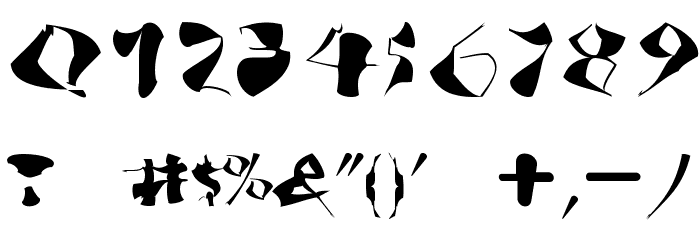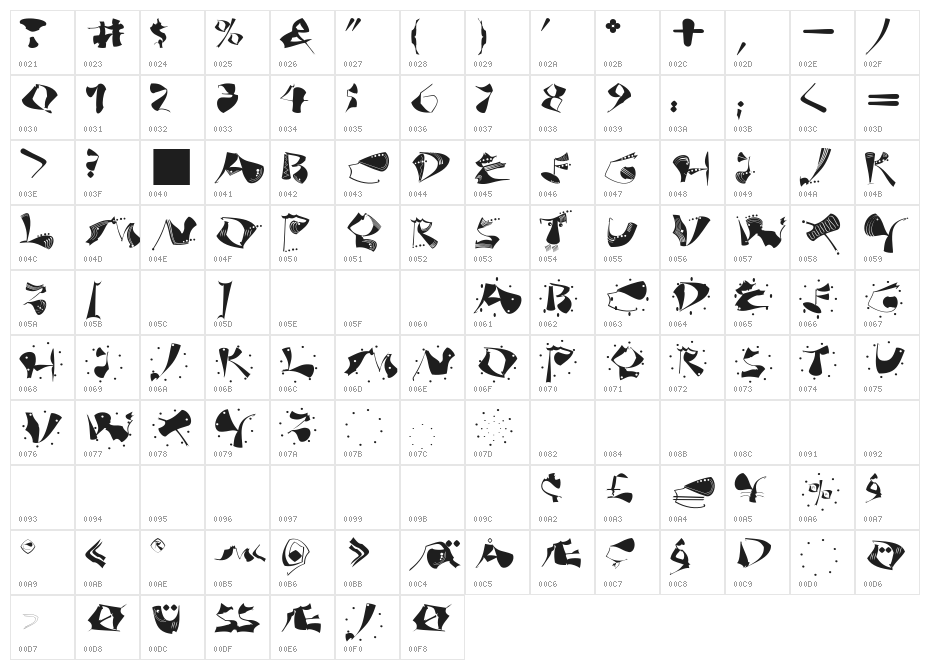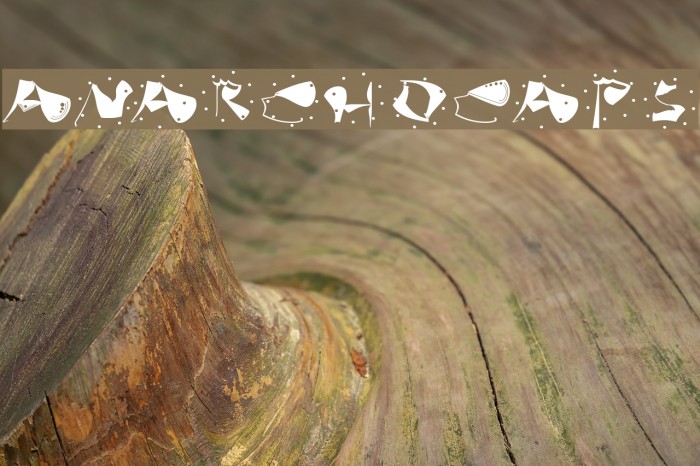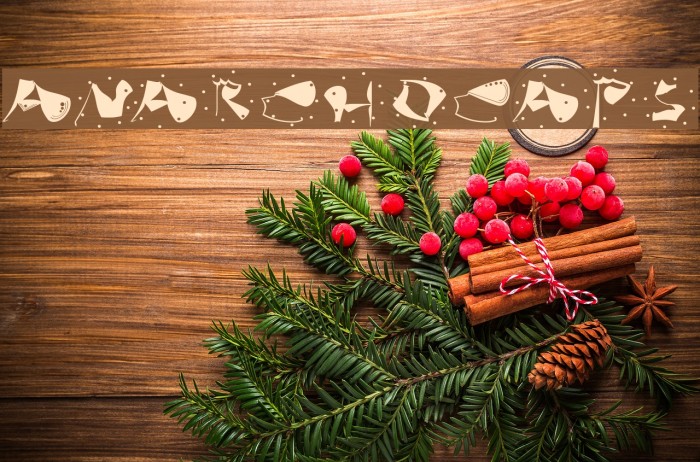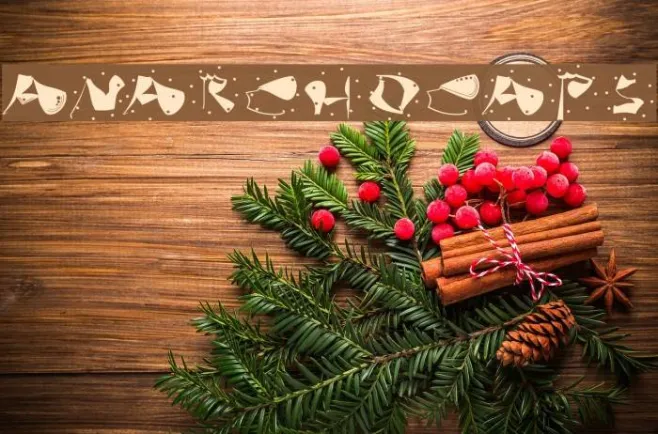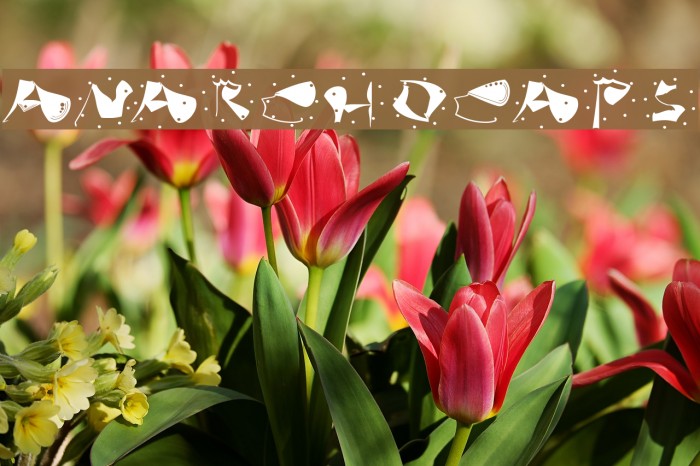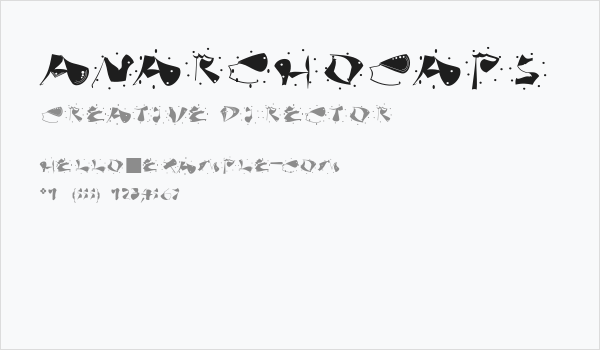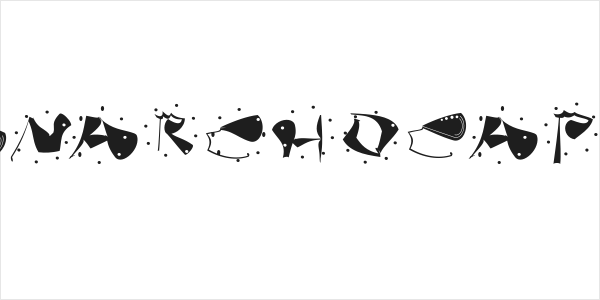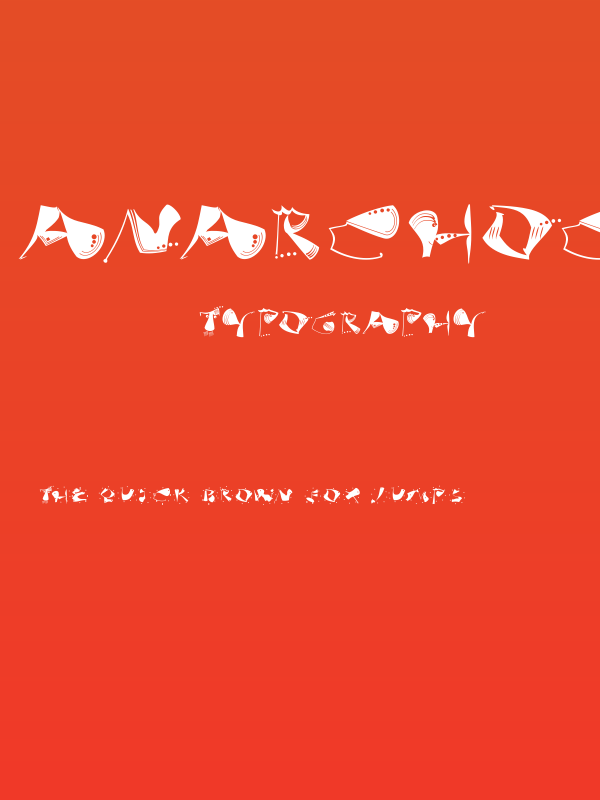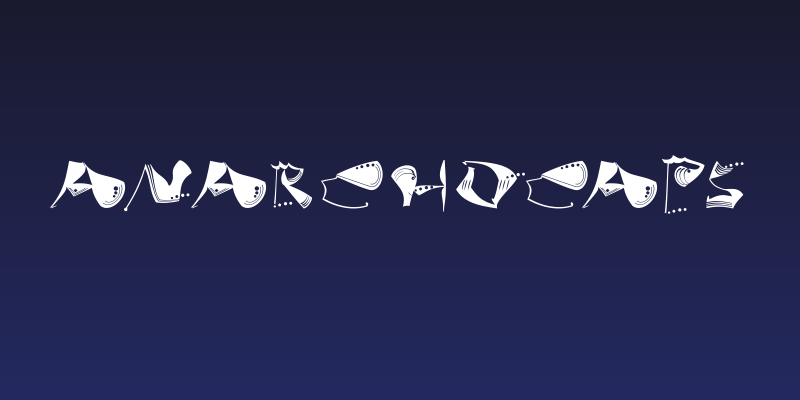
AnarchoCaps Font
AnarchoCaps Description
This font is a highly decorative and abstract typeface, characterized by its chaotic and fragmented design. Each letter is uniquely crafted with irregular shapes, sharp angles, and unexpected curves, giving it an anarchic and rebellious feel. The font incorporates a mix of thick and thin strokes, with some letters featuring additional decorative elements like dots and lines. The overall appearance is bold and eye-catching, making it suitable for projects that require a strong visual impact. The numbers and special characters follow the same design principles, ensuring consistency across the typeface.
| Use Case | Logos, Posters, Artistic projects |
| Proposed Projects | Ideal for album covers, posters, graffiti art, and any project needing a rebellious or avant-garde aesthetic. |